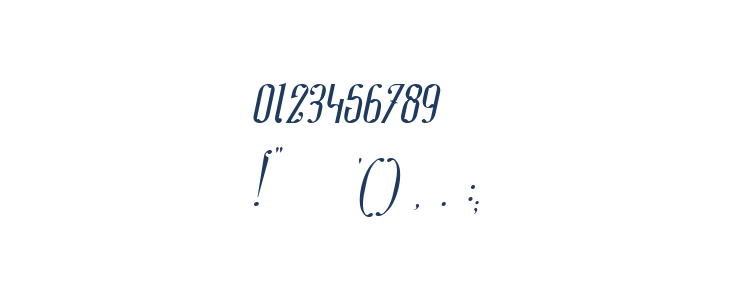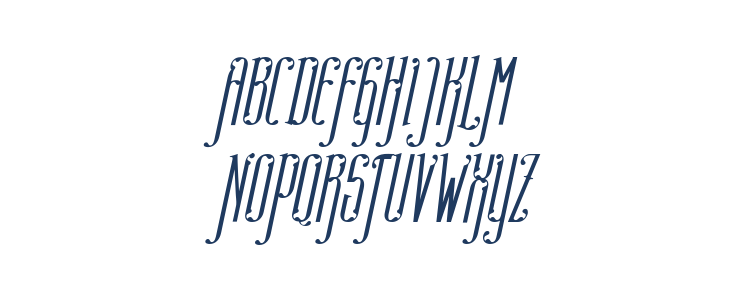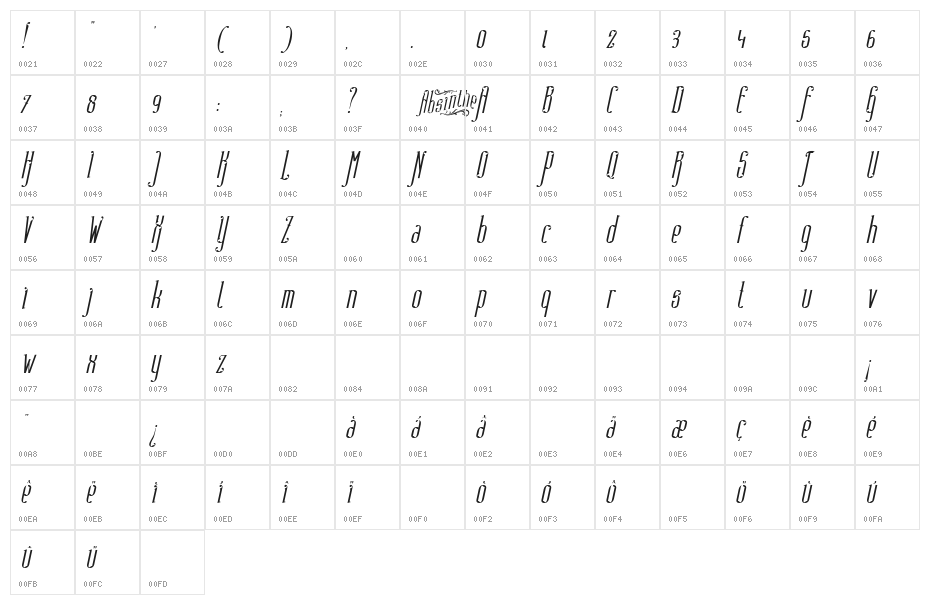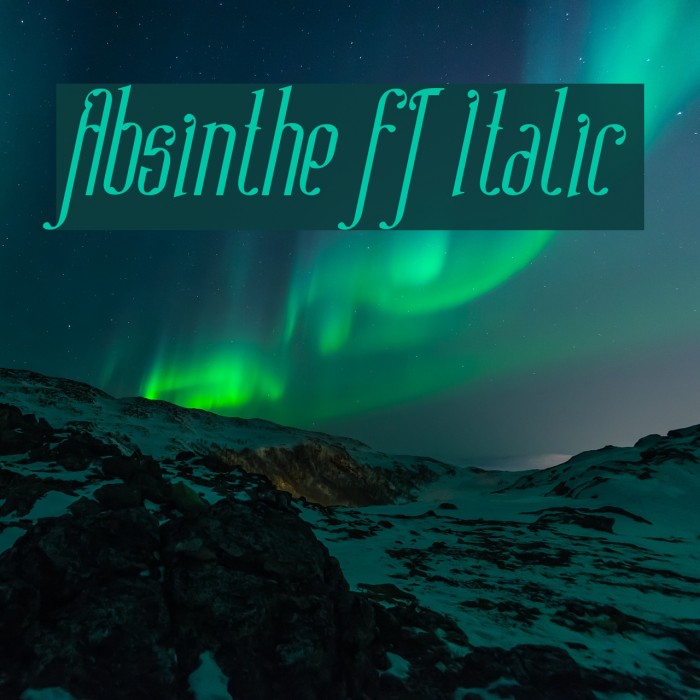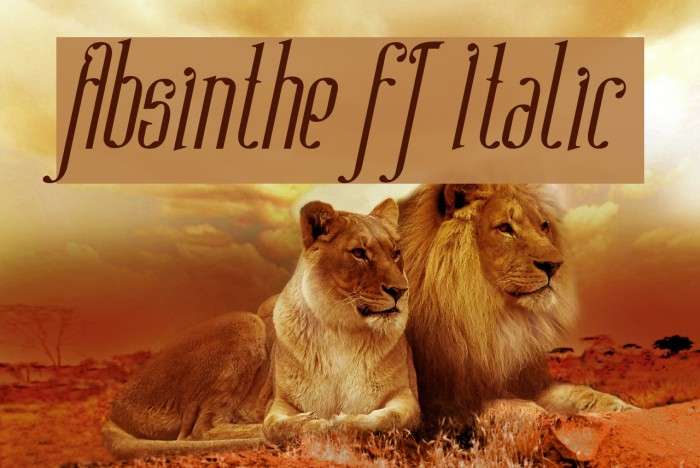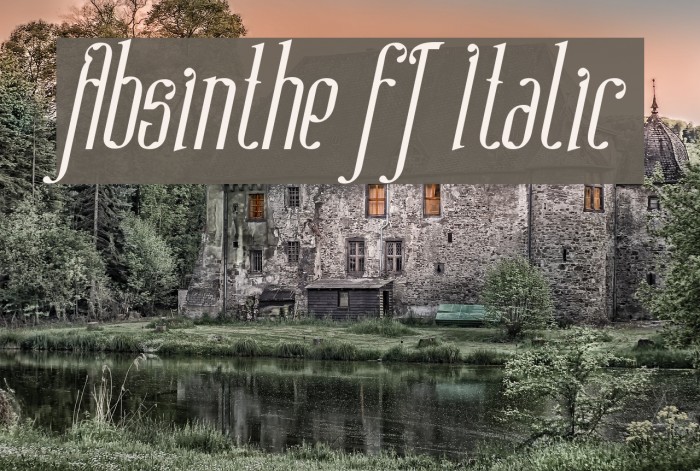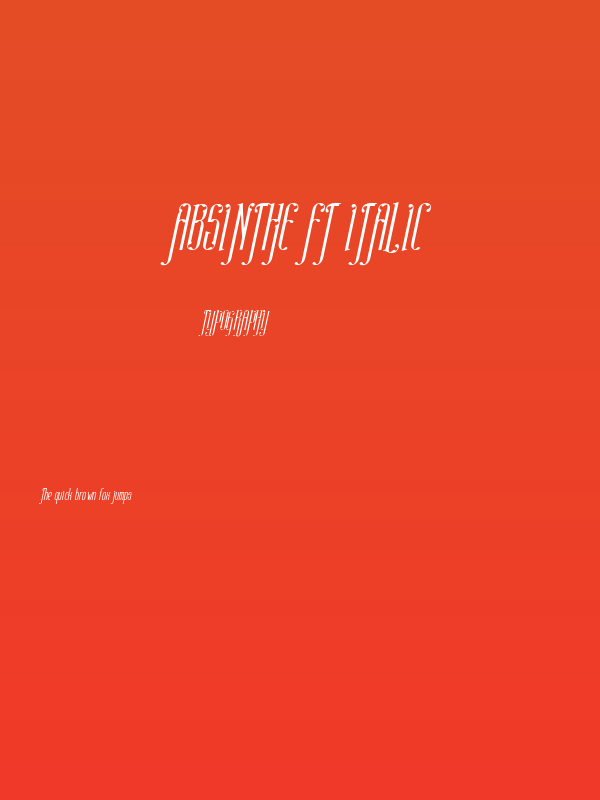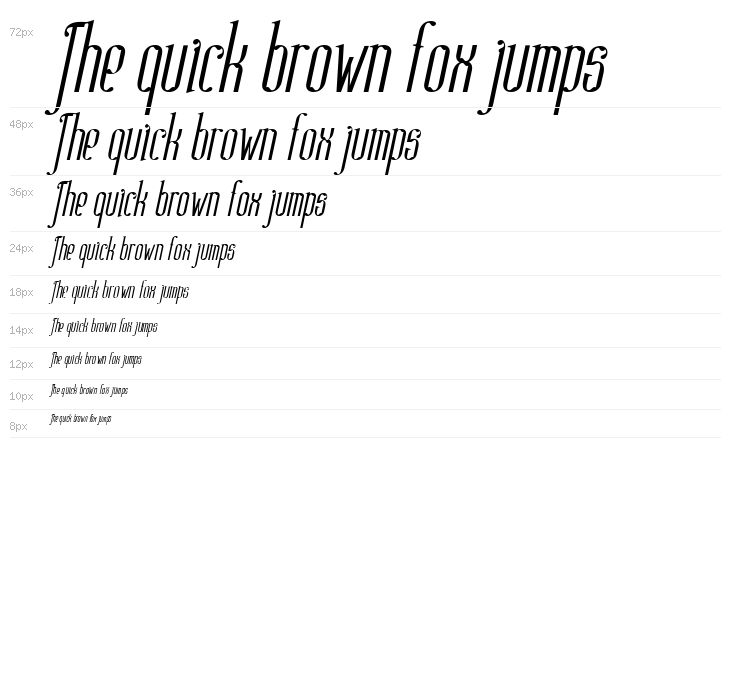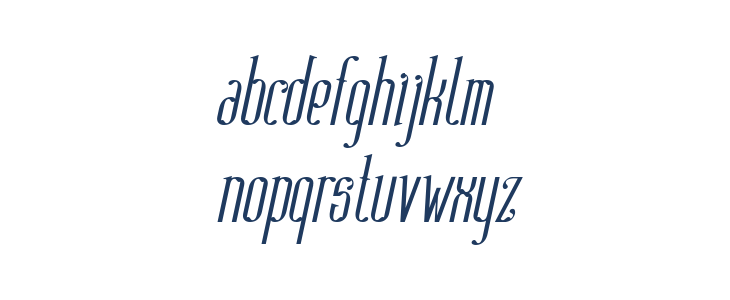
Absinthe FT Italic Font
Absinthe FT Italic Description
This font features a distinct, elongated style with a pronounced slant, giving it an elegant and sophisticated appearance. The characters are narrow with high contrast between thick and thin strokes, adding a dynamic and artistic flair. The uppercase letters are tall and commanding, while the lowercase letters maintain a consistent flow, enhancing readability. The numerals are uniquely styled to match the overall aesthetic, and the special characters are crafted with the same attention to detail. This font exudes a sense of vintage charm and is ideal for creating a striking visual impact.
Absinthe is an Art Nouveau inspired typeface.